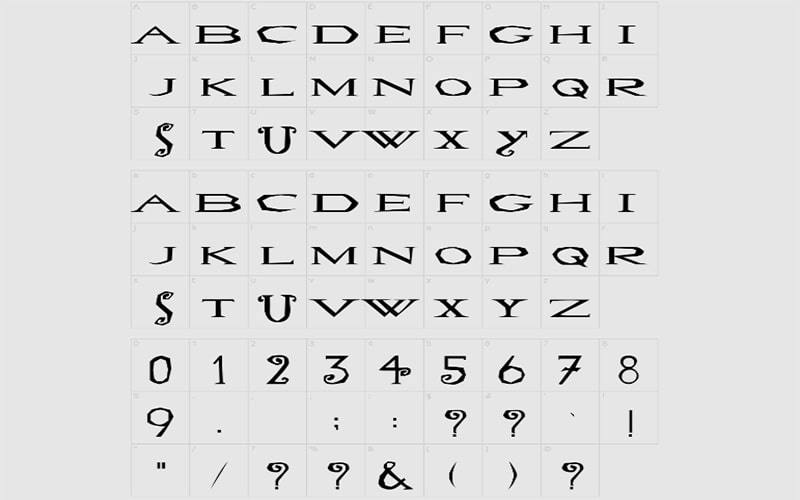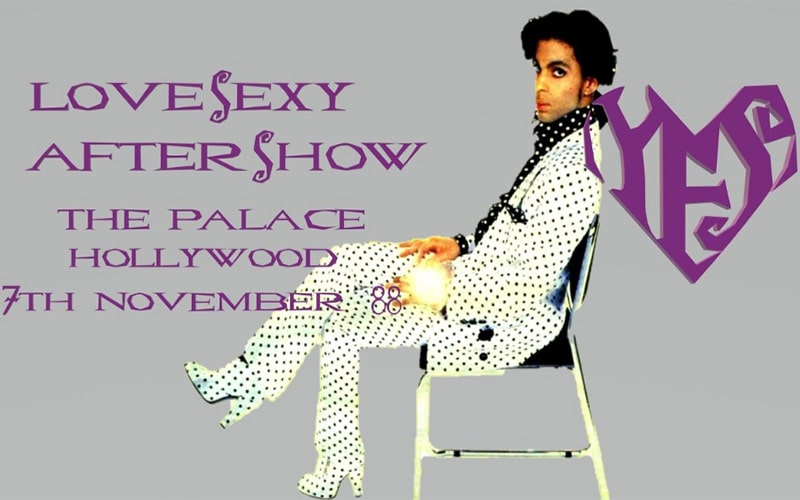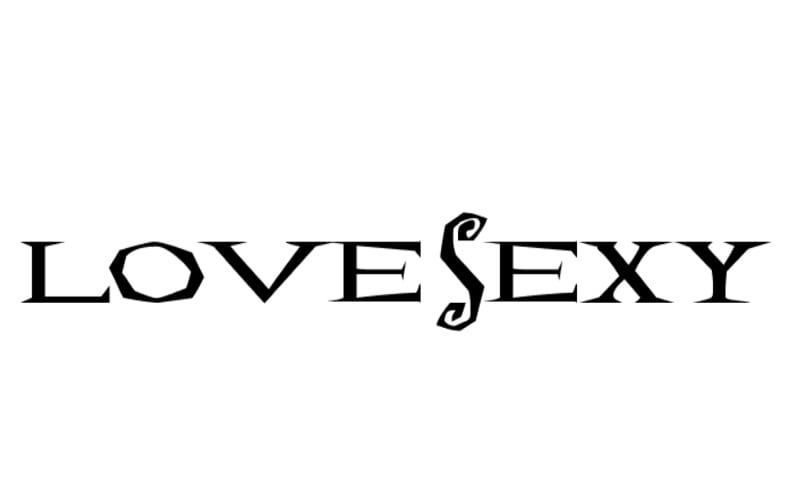
Lovesexy Font is a cartoon and fancy typeface. Kurt Knopp is the primary designer who took charge of designing this typeface for the first time on March 30, 2010. The subfamily of Lovesexy Font is regular.
This beautiful and versatile font contains 1 style such as the “Lovesexy Font Regular” font style. This single-weight font makes this typeface familiar around the world.
Ranges are 79 Basic Latin, 15 Latin-1 Supplement, 1 Latin Extended-B, 2 Spacing Modifier Letters, 1 Greek and Coptic, 3 General Punctuation, 1 Mathematical Operator, and 1 Geometric Shape.
This amazing free version font is available in all lowercase and uppercase letters, numbers, and some special characters. Let’s take a single look at its texture.
| Font Name: | Lovesexy Font |
| Style: | Fancy, Cartoon, Typeface |
| Font Designer: | Kurt Knopp |
An amazing and lovely font has come with 68 unique glyphs counted in numbers and 103 defined characters. This font contains Unicode character ranges.